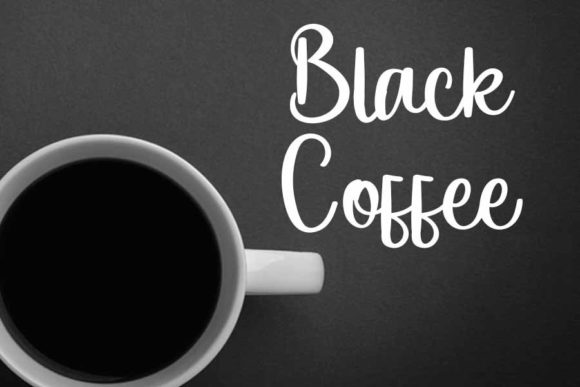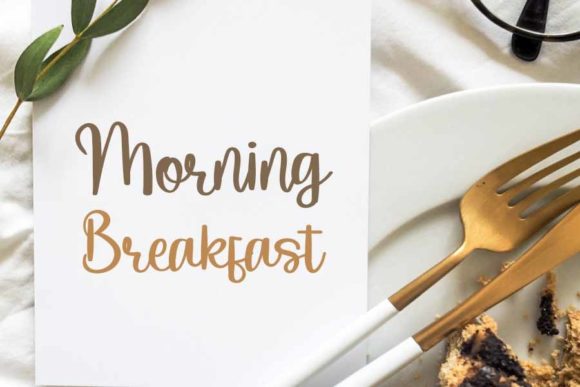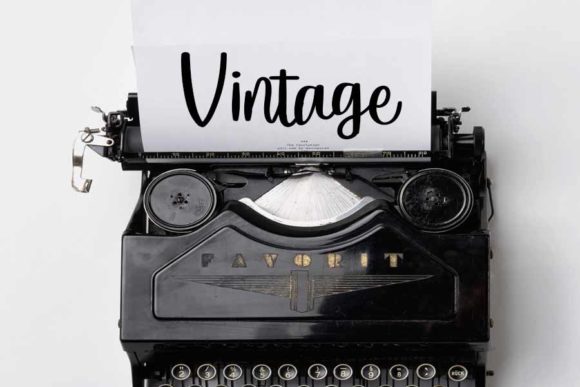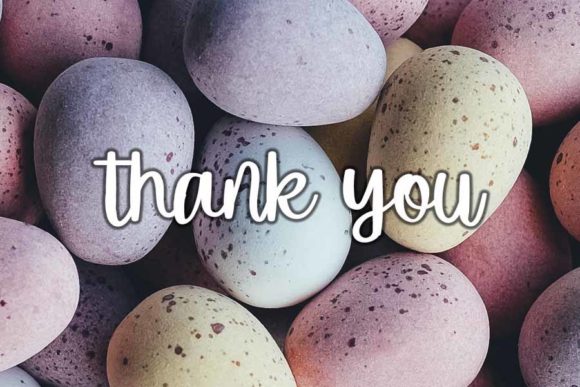
Unleashing the West Coast Vibe: California Font
Have you ever found yourself staring at a blank canvas, waiting for the perfect idea to strike? That’s exactly what happened to me the day I stumbled upon the California Font. It was as if the font was calling out to me, whispering ‘create something beautiful.’ I was immediately drawn to its classic, yet friendly feel, and I knew I had to learn more.
California Font is a smart handwritten font that seamlessly blends timeless elegance with authentic calligraphy. It’s the perfect combination of sophistication and approachability, making it a valuable addition to any designer’s toolkit. Whether you’re working on a logo, brochure, or social media graphic, the California Font is sure to bring a touch of California cool to your designs.
- Unique Characteristics: The font features a unique blend of modern and vintage elements, with a distinctive feel that evokes the spirit of California’s laid-back culture.
California Font Review
At first glance, California Font seems like a great choice for a project. Here are some things that work well: ✨
- It has a unique, laid-back vibe that’s perfect for projects that need a relaxed feel.
- The font is highly legible, making it a great choice for body text.
- It’s available in a range of weights, from light to bold, giving you plenty of flexibility.
- California Font is a great choice for projects that need a touch of modernity, but still want to feel approachable.
- The font may not be the best choice for projects that need a lot of emphasis or contrast.
- Some of the weights may feel a bit too similar, which can make it hard to choose the right one for your project.
- California Font may not be the best choice for projects that need a lot of customization options.
Overall, I think California Font is a solid choice for projects that need a relaxed, modern feel. While it may not be perfect for every project, it’s a great option to consider if you’re looking for a font that’s easy to read and has a laid-back vibe.
California Font is ideal for:
1. Creating a relaxed, casual atmosphere in marketing materials.
2. Designing beach-themed or outdoor-inspired graphics.
3. Adding a touch of California style to social media posts and advertisements.
1. Pair California Font with a clean and simple design to let the font shine.
2. Use it sparingly to avoid overwhelming the viewer.
3. Experiment with different font sizes and colors to find the perfect combination.
Alternatives to California Font for Designers
Alex Brush is a beautiful, elegant script font ideal for creating a sophisticated and high-end feel. It’s perfect for use in branding, advertising, and editorial design. Compared to California Font, Alex Brush has a more refined and polished look, making it suitable for luxury brands and high-end publications.
Carolyna Pro is a modern script font with a unique blend of elegance and playfulness. It’s great for use in creative projects, such as invitations, wedding stationery, and social media graphics. Unlike California Font, Carolyna Pro has a more dynamic and expressive feel, making it perfect for designers who want to add a touch of whimsy to their work.
Great Vibes is a beautiful, hand-drawn script font with a relaxed and casual feel. It’s ideal for use in creative projects, such as blog posts, social media, and marketing materials. Compared to California Font, Great Vibes has a more laid-back and approachable look, making it perfect for designers who want to create a friendly and approachable tone.